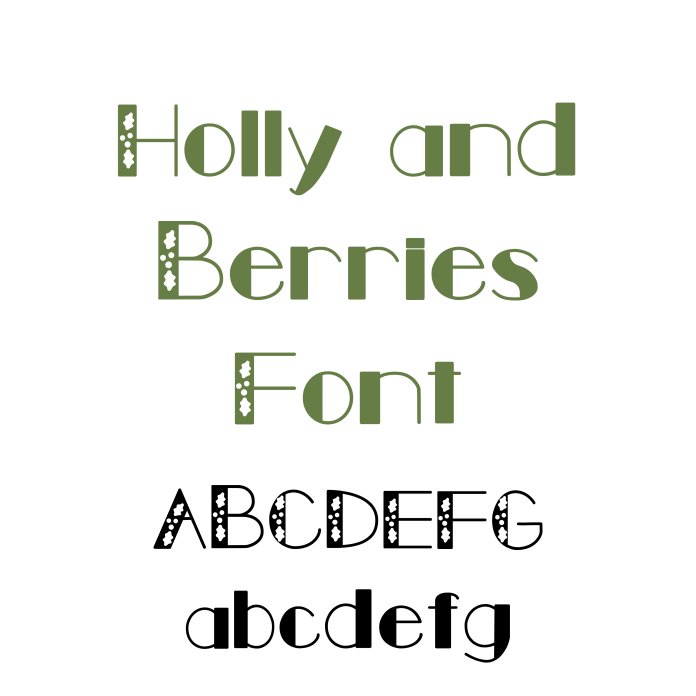
"Holly and Berries" is the perfect font to bring festive cheer to your holiday projects! With its charming, whimsical style, this font features delicate holly leaves and berries integrated into the letters, making it ideal for Christmas crafts. Whether you're creating personalized gift tags, holiday cards, or seasonal décor, "Holly and Berries" adds a joyful, decorative touch to every design. Its playful and elegant look captures the spirit of the season, making it a must-have for all your Christmas crafting needs. Spread some holiday magic with this delightful font!